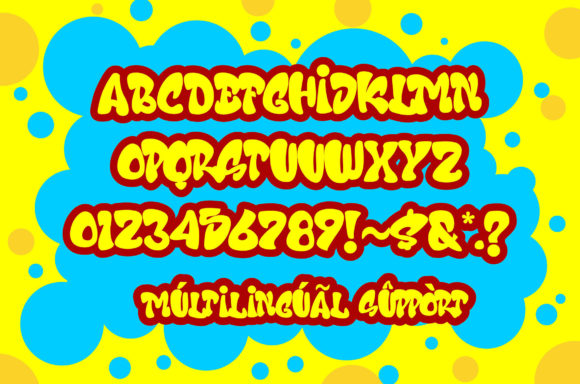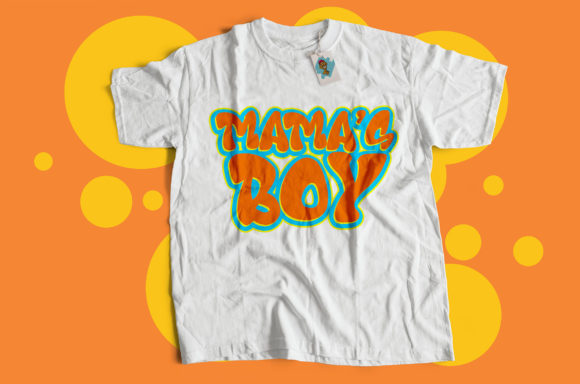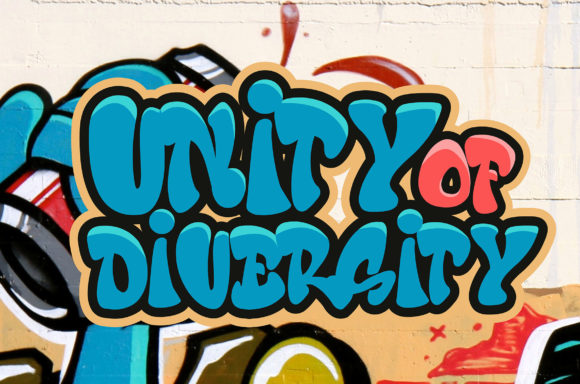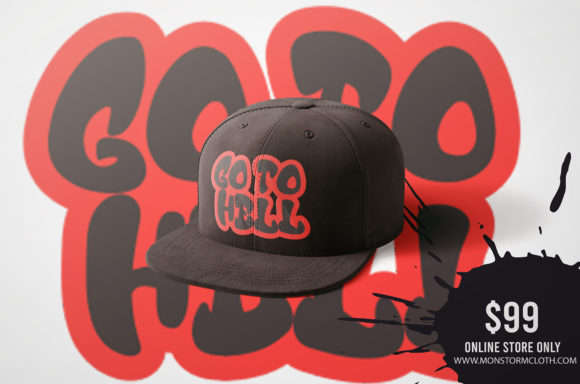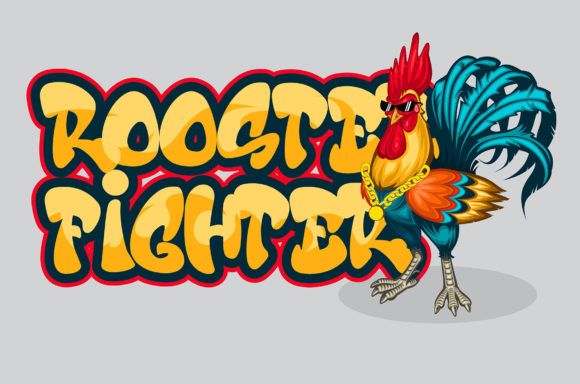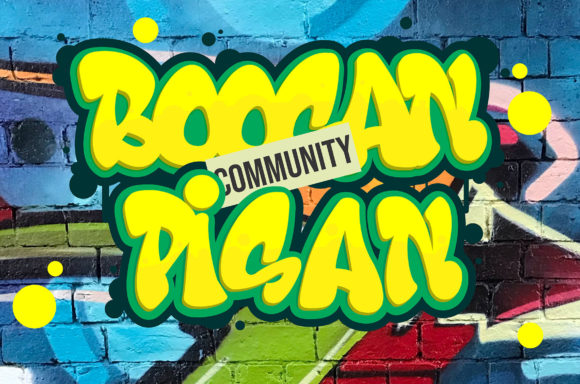
Crazy Rooster Font: The Ultimate Retro-Styled Display Font for Designers and Crafters
Are you tired of using the same old fonts in your designs? Do you want to add a touch of nostalgia and boldness to your creations? Look no further than the Crazy Rooster Font! This retro-styled display font is a game-changer for designers and crafters alike, and we’re excited to dive into its features and benefits.
What is Crazy Rooster Font?
Crazy Rooster is a bold and eye-catching display font that’s perfect for adding a retro touch to your designs. With its unique and quirky style, this font is sure to make your creations stand out from the crowd. Whether you’re working on a logo, poster, or social media graphic, Crazy Rooster Font is an incredible asset to have in your font library.
Key Features of Crazy Rooster Font
- Retro-Styled: Crazy Rooster Font has a distinct retro vibe that’s perfect for designers who want to add a touch of nostalgia to their creations.
- Bold and Eye-Catching: This font is designed to grab attention, making it perfect for headlines, titles, and other display text.
- Versatile: Crazy Rooster Font can be used on a wide range of topics and projects, from vintage-inspired posters to modern digital graphics.
- High-Quality: This font is crafted with precision and attention to detail, ensuring that it looks great in any size or resolution.
Why Designers and Crafters Love Crazy Rooster Font
So, what makes Crazy Rooster Font so popular among designers and crafters? Here are just a few reasons:
- Easy to Read: Despite its bold and playful style, Crazy Rooster Font is surprisingly easy to read, making it perfect for use in a variety of contexts.
- Customizable: With its wide range of characters and symbols, Crazy Rooster Font can be customized to fit your unique design needs.
- Time-Saving: With Crazy Rooster Font, you can create stunning designs in no time, thanks to its pre-designed characters and symbols.
- Unique: This font is truly one-of-a-kind, giving you the opportunity to add a touch of personality to your designs.
How to Use Crazy Rooster Font in Your Designs
Ready to get started with Crazy Rooster Font? Here are a few ideas for using this amazing font in your designs:
- Logos and Branding: Use Crazy Rooster Font to create a bold and eye-catching logo that’s sure to grab attention.
- Posters and Flyers: Add a touch of nostalgia to your posters and flyers with this retro-styled font.
- Social Media Graphics: Use Crazy Rooster Font to create stunning social media graphics that are sure to stand out.
- Vintage-Inspired Designs: This font is perfect for creating vintage-inspired designs, such as t-shirt designs, stickers, and more.
| Font Name | Crazy Rooster Font |
| Author | Cikareotype |
In conclusion, Crazy Rooster Font is an incredible asset for designers and crafters who want to add a touch of boldness and nostalgia to their creations. With its unique retro style, versatility, and high-quality craftsmanship, this font is sure to elevate any design project. Whether you’re working on a logo, poster, or social media graphic, Crazy Rooster Font is the perfect choice. So why wait? Download Crazy Rooster Font today and start creating stunning designs that are sure to grab attention!